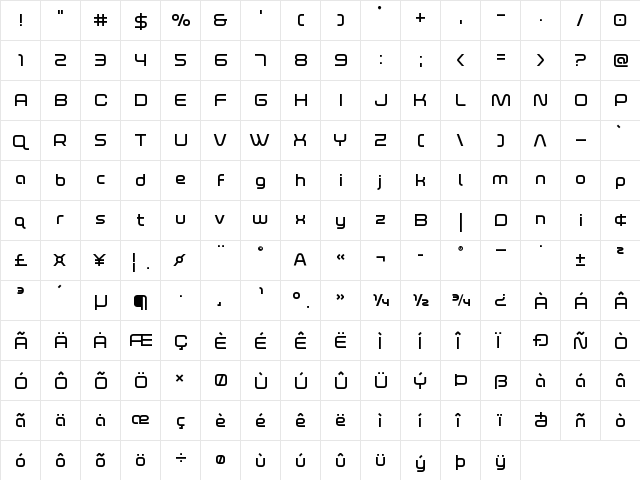
Fox on the Run Semi-Bold Semi-Bold
Design Context for Fox on the Run Semi-Bold Typeface
Fox on the Run Semi-Bold offers clean, dependable letterforms without strong stylistic allegiance, making it a practical choice for designers who need flexibility. Its bold stroke weight gives it real presence on the page.